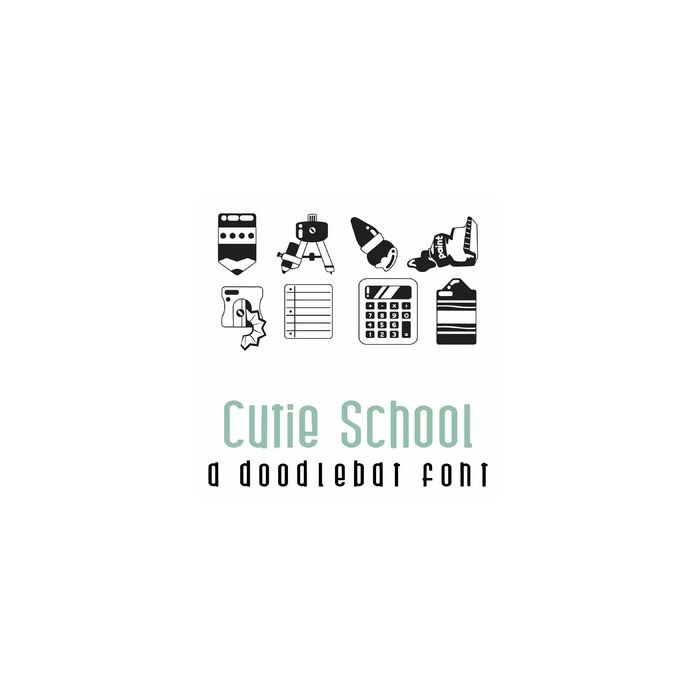
This fun full-color doodlebat font features 26 adorable chubby school supplies. Perfect for teachers, classrooms, students, cards, crafts, gifts, scrapbook pages, planner stickers, and more!